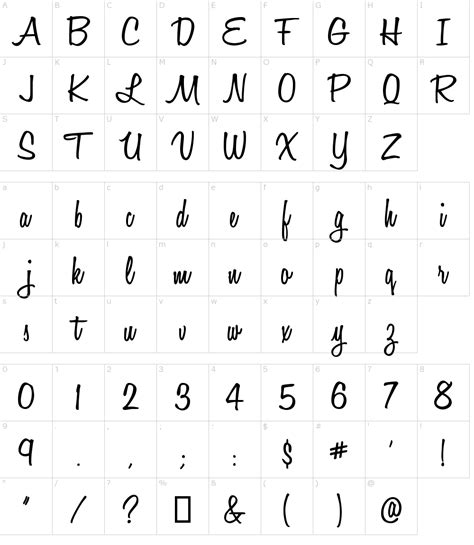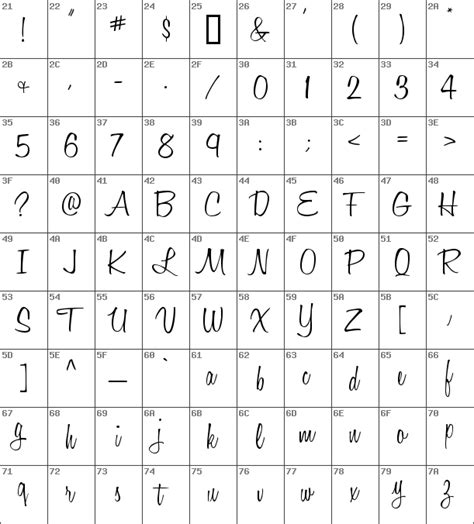
Honey script à by dieter steffmann.
The honey script light font contains 225 beautifully designed characters. Sweet like honey… this gorgeous script will deliver any message with grace, charm and style! Honey script has 2 styles and 100% free license. Honey script font contains 220 defined characters and 219 unique glyphs. Buttey honey script font is a cursive font that has a tail at the beginning and at the end of the letter that is suitable for use for posters, branding and crafting needs. ✓ click to find the best 34 free fonts in the honey style. Honey script, dieter steffmann, handwriting, script, honey script light.ttf, honey script characters sample. Conversion honey script may be. By typographer mediengestaltung on aug 28, 2018. Buttey honey script font is a cursive font that has a tail at the beginning and at the end of the letter that is suitable for use for posters, branding and crafting needs. Get inspired by its truly beautiful calligraphy script. This font belongs to the following categories: Honey script semibold honey script light.
Honey script has 2 styles and 100% free license. Get inspired by its truly beautiful calligraphy script. ✔️ customize your own preview on ffonts.net to make sure it`s the right one for your designs. Honey cute script is a high quality various font that is designed by prast art and is available for free download personal use. Download the honey script font by dieter steffmann. Buttey honey script font is a cursive font that has a tail at the beginning and at the end of the letter that is suitable for use for posters, branding and crafting needs. You can use this font for personal purpose. Download honey script light font | 2 styles free font. This demo font is for. Download free honey script font by dieter steffmann from fontsly.com. On this page you can download honey script light font version 001.007, which belongs download honey script light for free on allfont.net. We have a huge collection of around 72,000 truetype and. Sweet like honey… this gorgeous script will deliver any message with grace, charm and style!